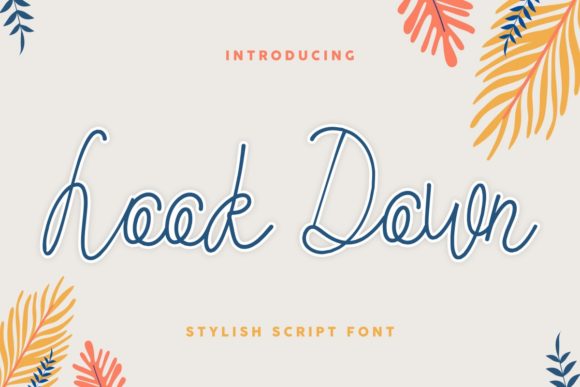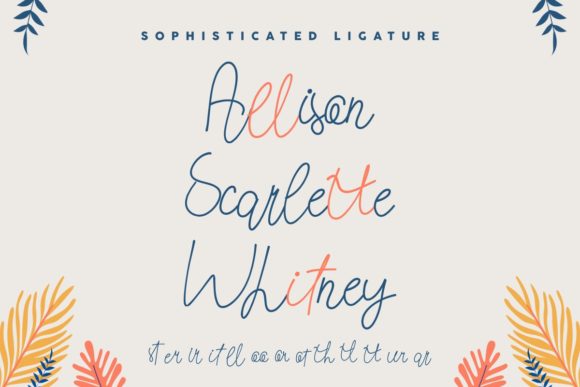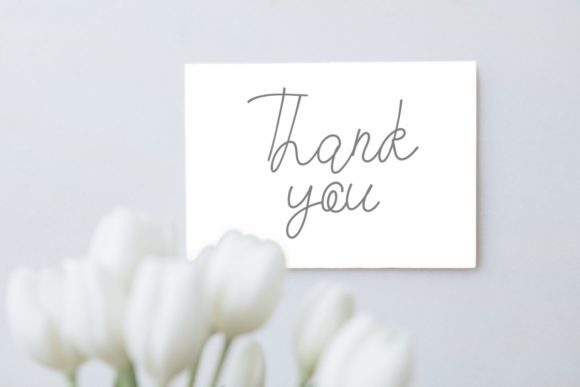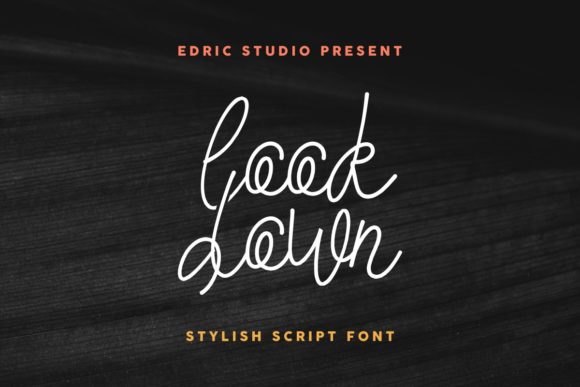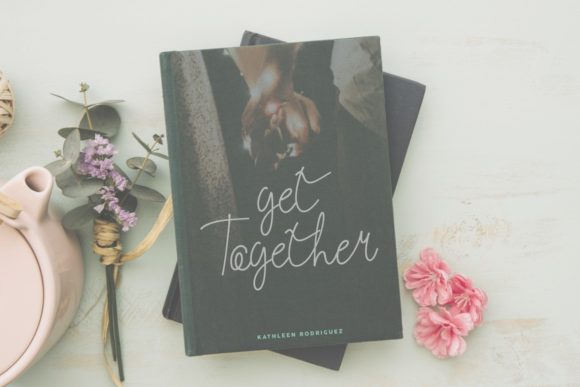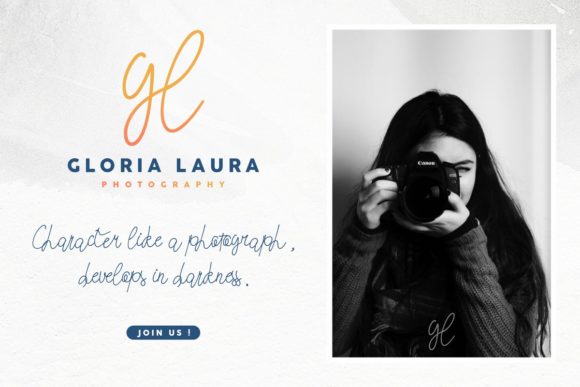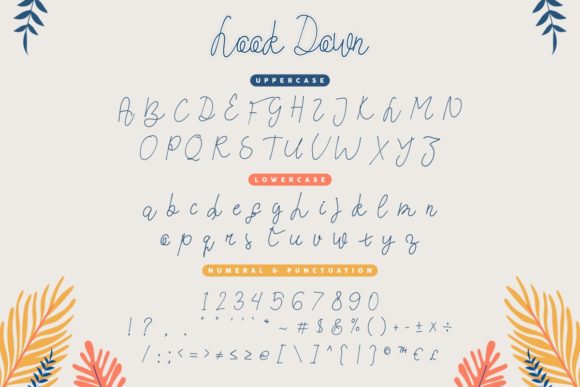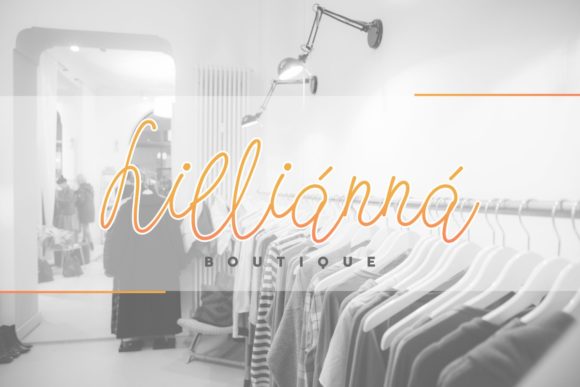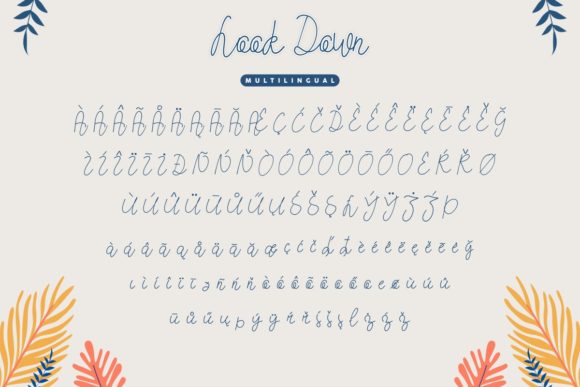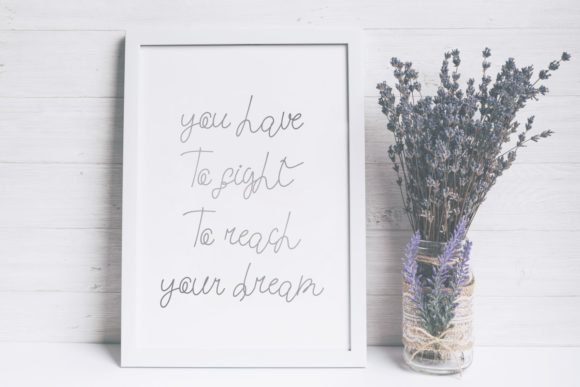
Look Down Font
About Look Down Font
Look Down is a delicate and distinct handwritten font. It looks stunning on wedding invitations, thank you cards, quotes, greeting cards, logos, business cards and every other design which needs a handwritten touch.